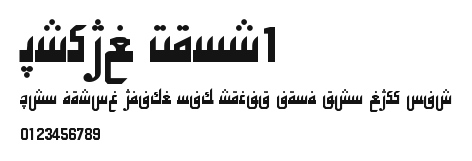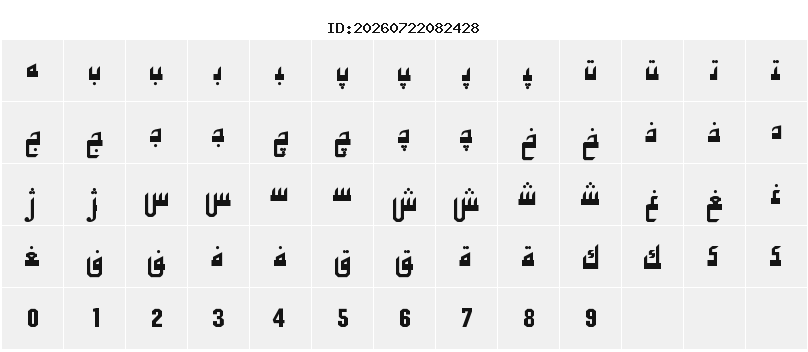
Hiyal Kufi1 Preview
• Font Name: Hiyal Kufi1
• Font ID: Hiyal Kufi1 :Version 1.00
• Full Font Name: Hiyal Kufi1
• Version: Version 1.00 August 8, 2005, initial release
• PostScript Name: HiyalKufi1-
• Character Count: 138
About Hiyal Kufi1.ttf
Hiyal Kufi1.ttf is a modern, elegant sans-serif font designed for ultimate readability and visual harmony. Perfect for branding, headlines, web design, and print materials.